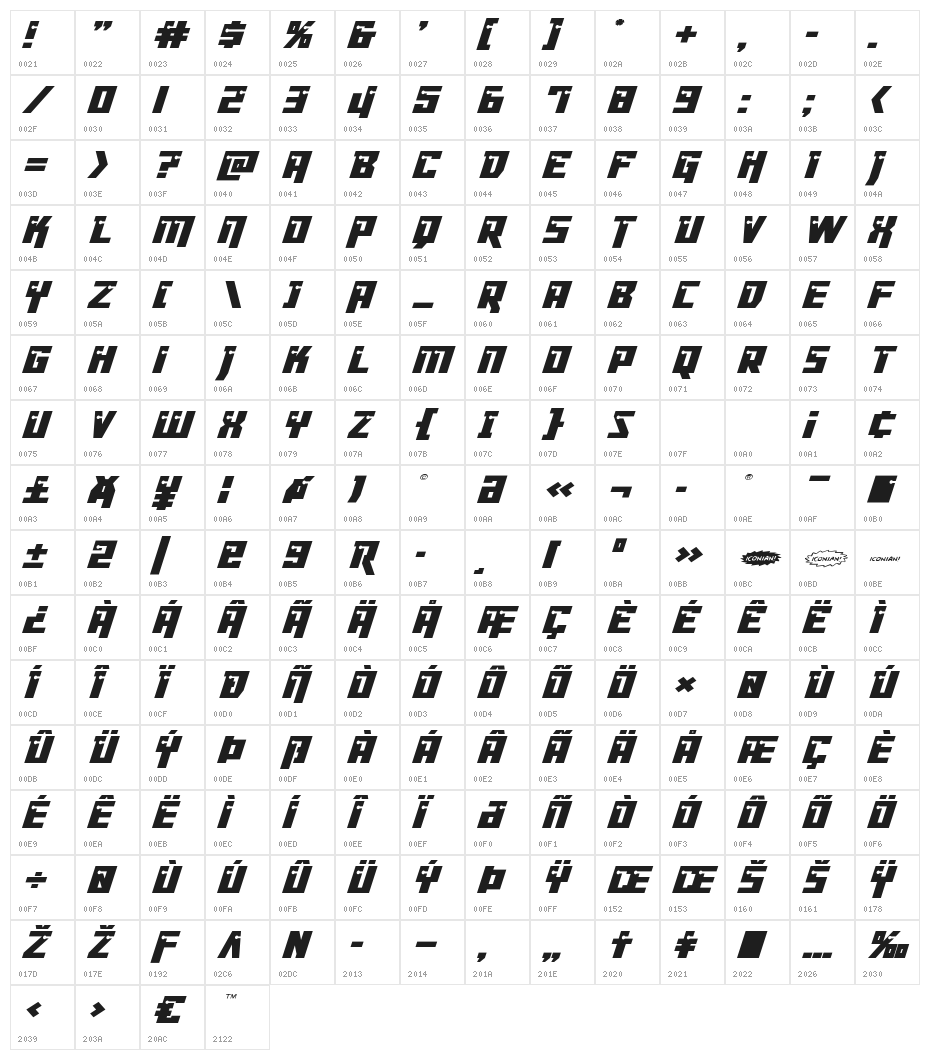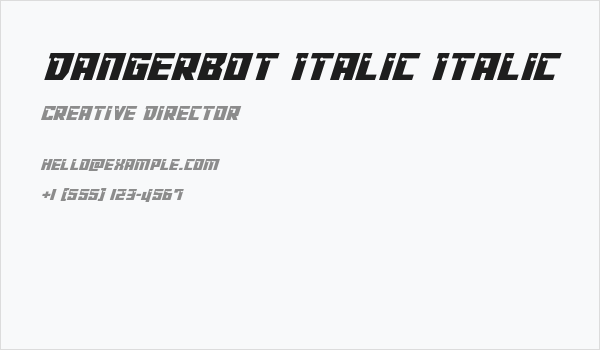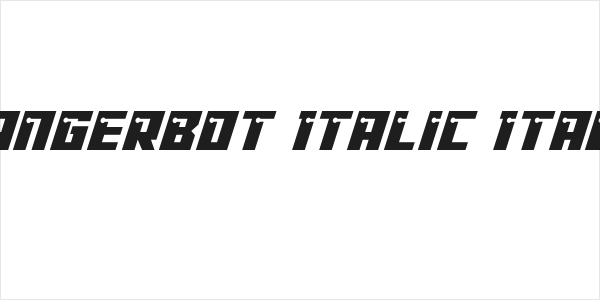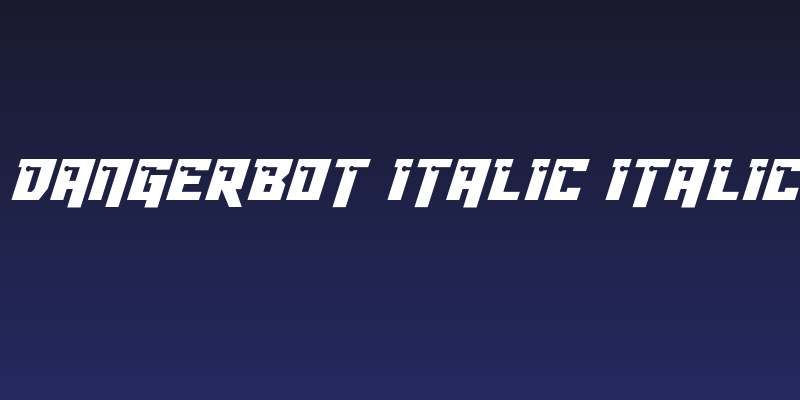
Dangerbot Italic Italic Font
Dangerbot Italic Italic Description
This font features a bold, angular design with a futuristic and aggressive aesthetic. The characters are italicized, giving a sense of motion and speed. The sharp edges and geometric shapes create a dynamic and striking appearance, making it ideal for attention-grabbing headlines or branding that requires a modern and edgy look. The uppercase and lowercase letters maintain a consistent style, with numbers and special characters following the same bold and angular theme. The overall design is cohesive, with each character exhibiting a strong presence.
Proposed ProjectsIdeal for sci-fi themed projects, video game titles, sports branding, or any design requiring a modern and dynamic appearance.